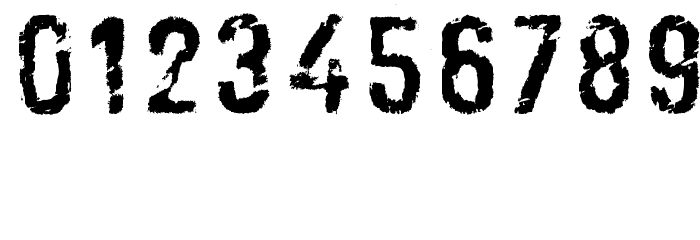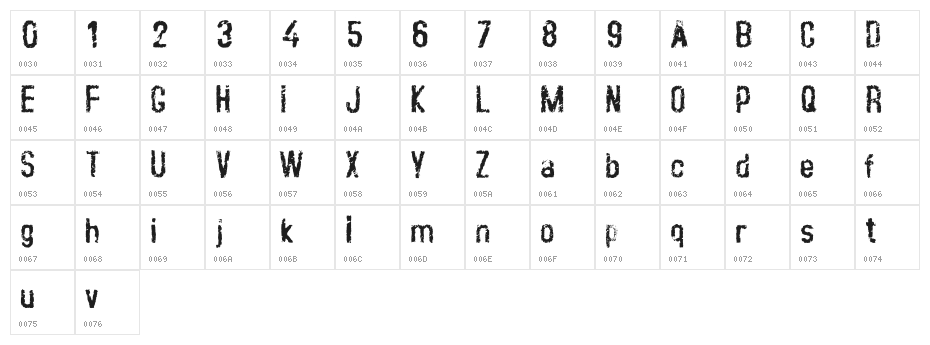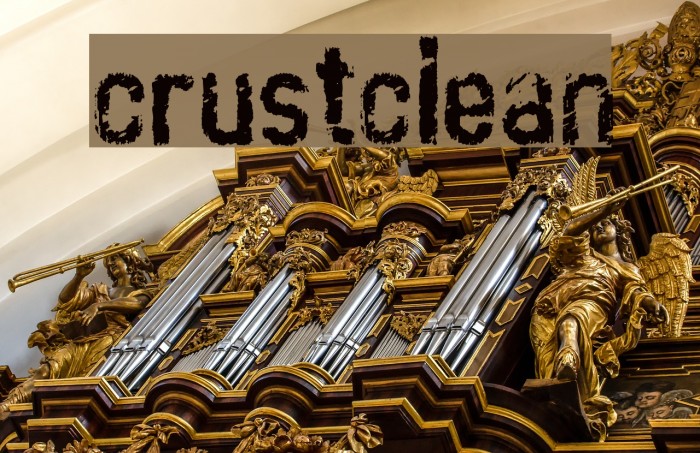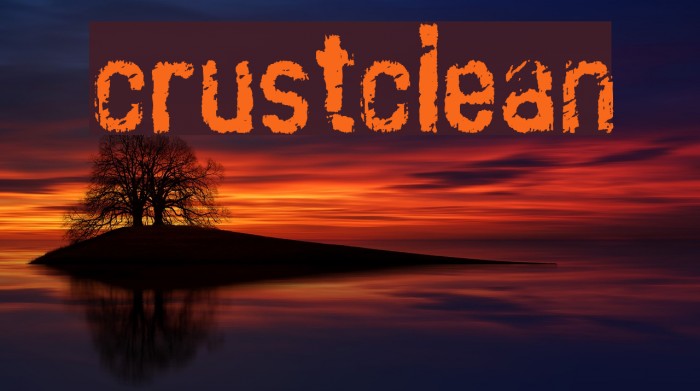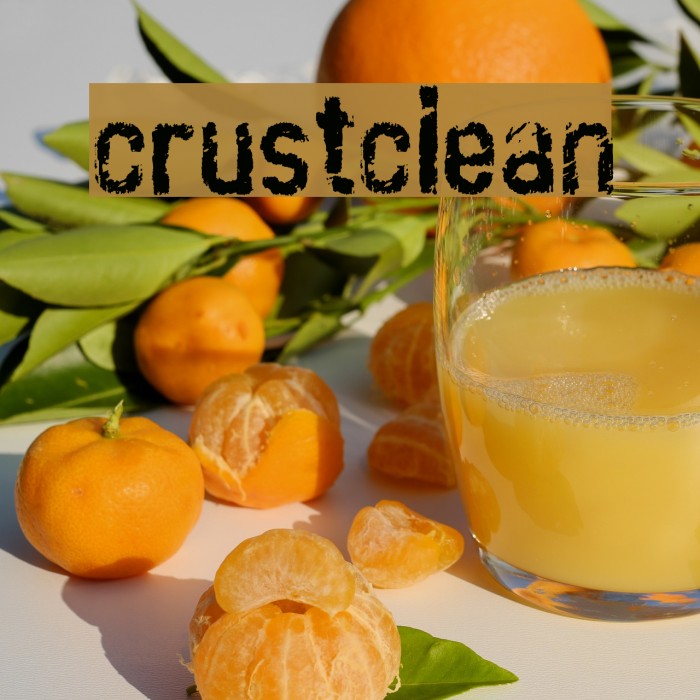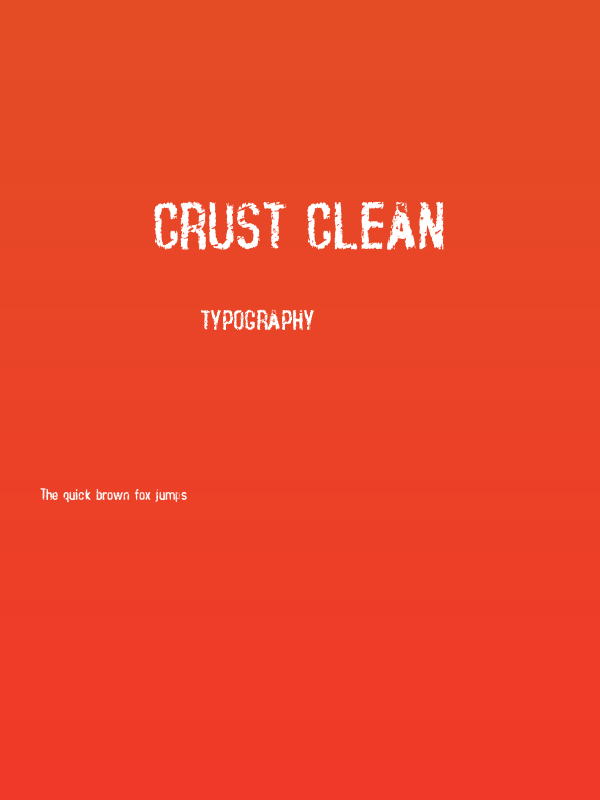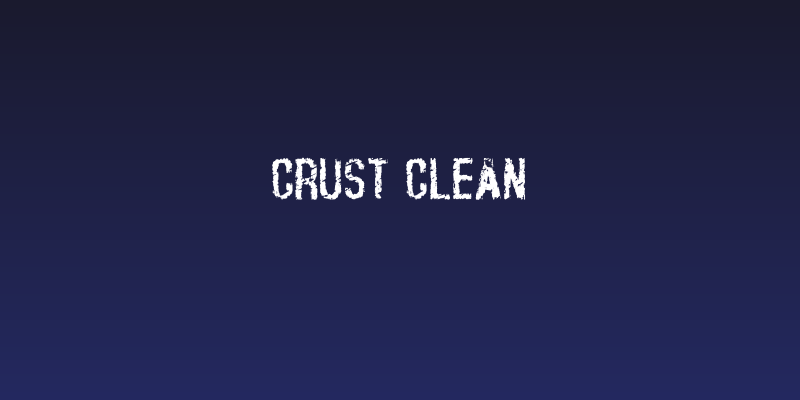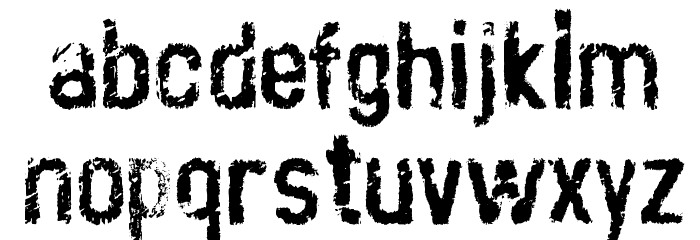
crust_clean Font
crust_clean Description
This font features a distressed, textured appearance that gives it a rugged and worn look. The characters are bold and impactful, with irregular edges that suggest a sense of movement and energy. This style is reminiscent of grunge or urban aesthetics, making it ideal for projects that require a raw, edgy feel. The uppercase and lowercase letters maintain consistent proportions, while the numerals and special characters follow the same distressed pattern, ensuring a cohesive look across all text elements.
| Overall Style | Grunge, Urban |
| Proposed Projects | Ideal for album covers, posters, streetwear branding, and any design needing an edgy, urban vibe. |